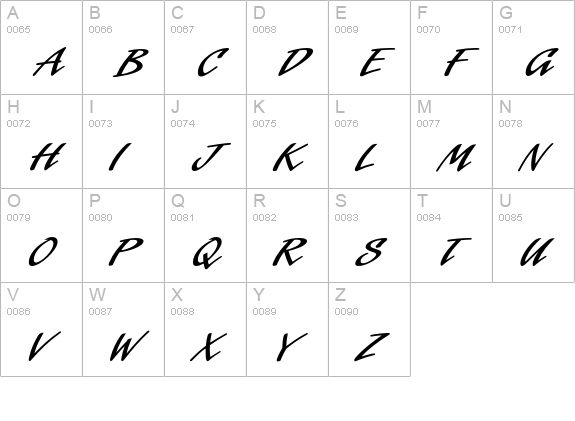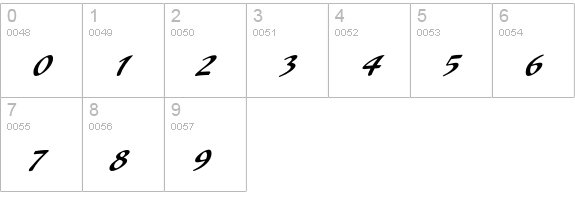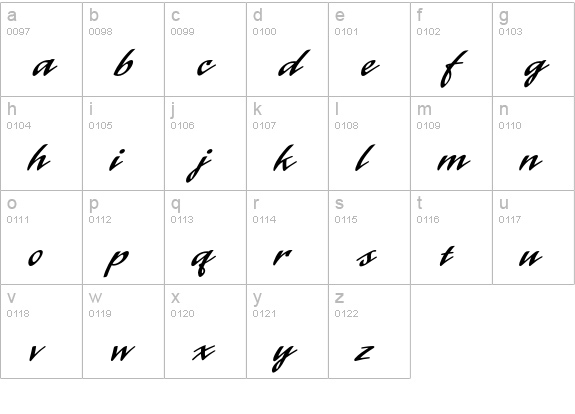
LaserICG-Alt Font Details
LaserICG-Alt font is a stylish and modern typeface that exudes elegance and sophistication. With its sleek lines and sharp edges, this font is perfect for adding a touch of professionalism to any design project. Whether you're creating a logo, designing a website, or crafting a promotional poster, LaserICG-Alt font will elevate your design to new heights. One of the best features of LaserICG-Alt font is that it is available for free download at FontsMarket.com. This means that you can easily access this incredible font without breaking the bank. With just a few clicks, you can have LaserICG-Alt font at your fingertips, ready to enhance your creative endeavors. The versatility of LaserICG-Alt font is another reason why it stands out from the crowd. Whether you're going for a bold and impactful look or a more subtle and understated aesthetic, this font has you covered. Its alternate characters add an extra layer of customization, allowing you to truly make your design your own. Not only does LaserICG-Alt font look stunning on its own, but it also pairs beautifully with other fonts. Its clean and modern design seamlessly blends with a variety of typefaces, giving you endless possibilities for creative combinations. In addition to its aesthetic appeal, LaserICG-Alt font is also highly legible. Its clear and distinct letterforms ensure that your message is easily conveyed to your audience, enhancing the overall impact of your design. So why wait? Download LaserICG-Alt font for free at FontsMarket.com and start transforming your designs today. With its sophistication, versatility, and legibility, this font is a must-have for any designer or creative enthusiast. Elevate your projects to the next level with LaserICG-Alt font and make a lasting impression.